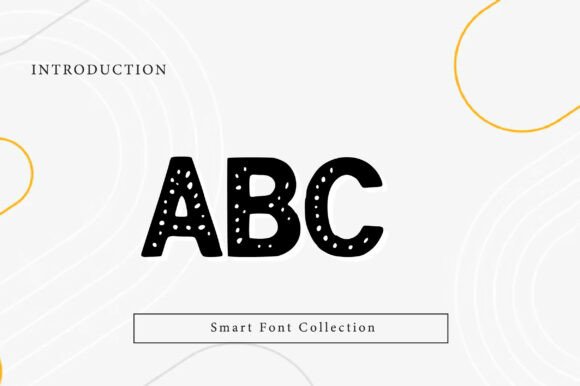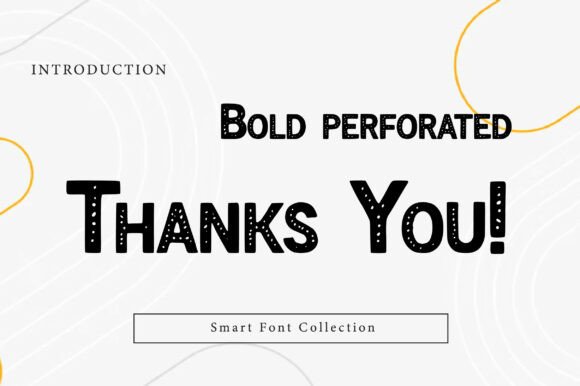
Discover the Bold Perforated Font: A Game-Changer for Designers and Crafters
I still remember the frustration of working on a project, hours spent searching for the perfect font, only to end up with something that felt off. One day, I was tasked with creating a vintage-style label for a client’s product packaging. I needed a font that was bold, eye-catching, and had a unique texture to give it a handmade feel. That’s when I stumbled upon the Bold Perforated font. It was love at first sight! 💡
- ✅ Unique perforated texture effect that adds a playful industrial feel to any design
- ✅ Bold structure that makes it perfect for creating eye-catching headlines and titles
- ✅ Highly versatile and works well in both digital and print formats
- ✅ Easy to read, even in large sizes, making it perfect for signage and posters
- 🤔 The perforation effect can be overpowering in smaller sizes, so use it wisely
- ⚠️ Limited use of stylistic alternates, but the font still offers a range of glyphs and OpenType features
The Designer Inspiration Behind Bold Perforated
The Bold Perforated font was inspired by the industrial design of the 20th century. Imagine a vintage factory, with metal signs and stamped labels everywhere. The designers wanted to capture the essence of this aesthetic and create a font that would bring a touch of nostalgia and playfulness to any design.
Q: What is the best way to use Bold Perforated in a design?
A: Bold Perforated works best in large sizes, where the perforation effect becomes more noticeable. Use it for headlines, titles, and signage to create a bold statement.
Q: Can I use Bold Perforated for digital and print designs?
A: Absolutely! Bold Perforated is highly versatile and works well in both digital and print formats.
Q: Is Bold Perforated suitable for small text?
A: While Bold Perforated can be used for small text, it’s best to use it in larger sizes to appreciate the perforation effect.